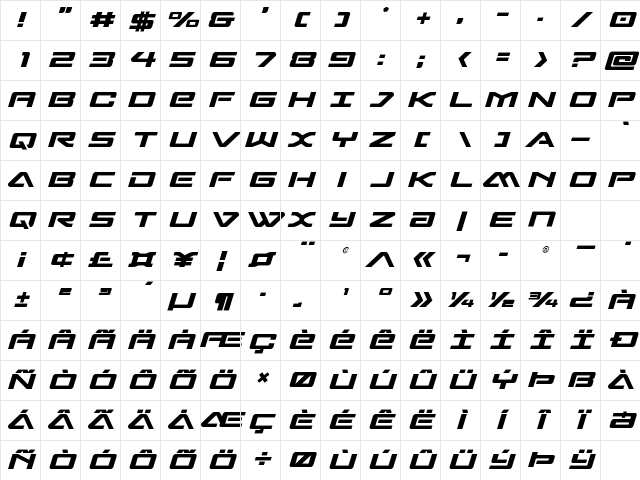
Sabre Shark Semi-Straight Regular
Complete Sabre Shark Semi-Straight Regular glyph index. Displaying only characters natively supported by Sabre Shark Semi-Straight Regular font.
Design Context for Sabre Shark Semi-Straight
Sabre Shark Semi-Straight is a composed and adaptable typeface that performs quietly and consistently across a wide range of design contexts.